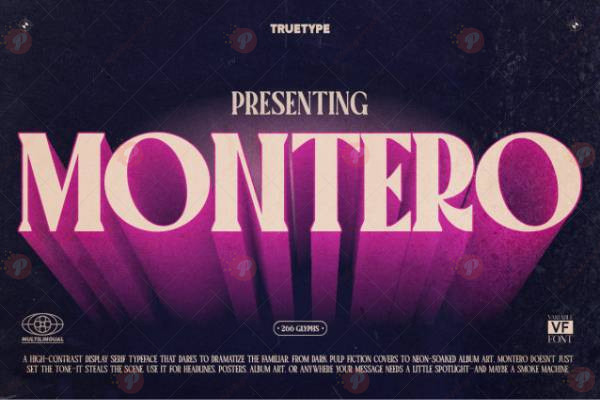
The TT Montero Free Font is a sleek, modern sans-serif typeface perfect for branding, web design, posters, social media graphics, headlines, and UI/UX projects.
With its clean lines, geometric shapes, and versatile style, TT Montero Free Font gives your text a professional and contemporary look. Ideal for both digital and print projects, it works seamlessly for logos, banners, advertising materials, and creative content.
Font Style: Regular / Sans-Serif / Modern Typeface
Perfect For: Branding, web & app design, posters, social media graphics, headlines, advertising
✨ Elevate your design projects with the TT Montero Free Font, combining clarity, modernity, and style.